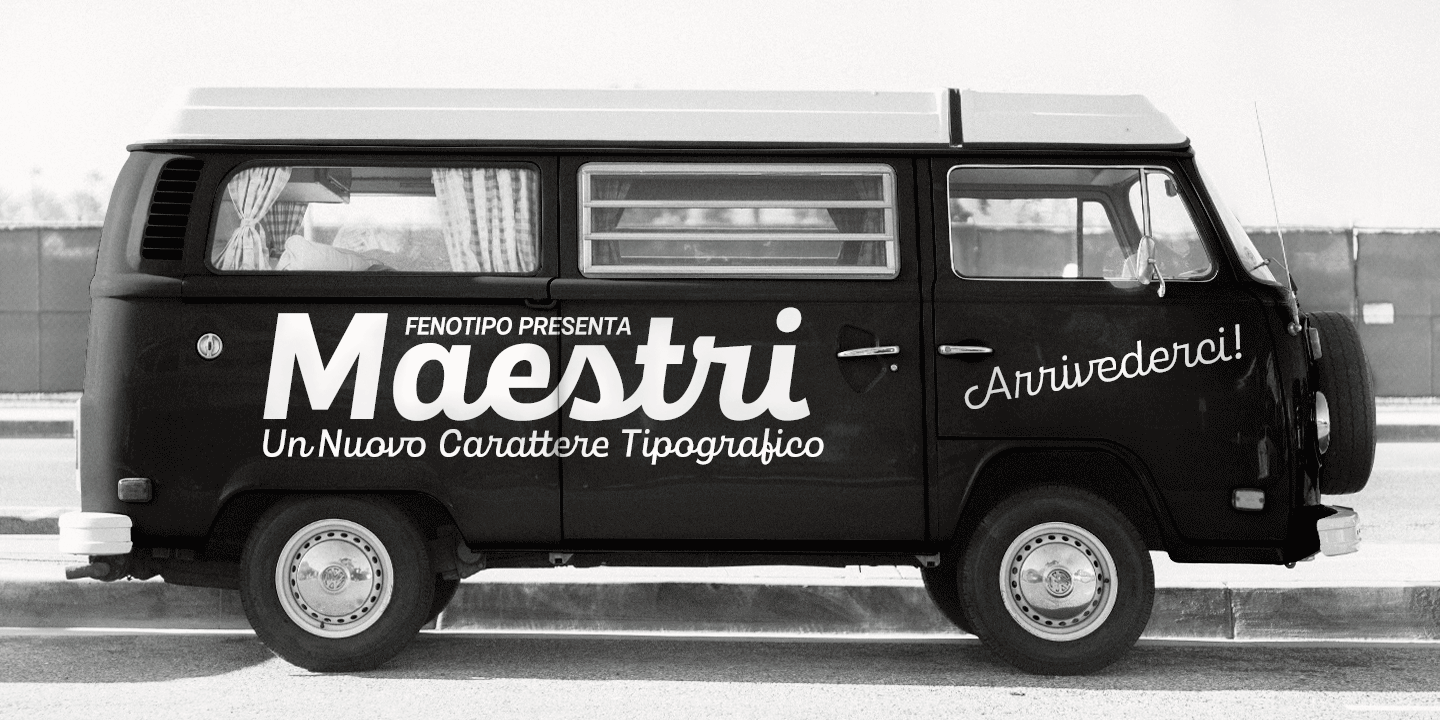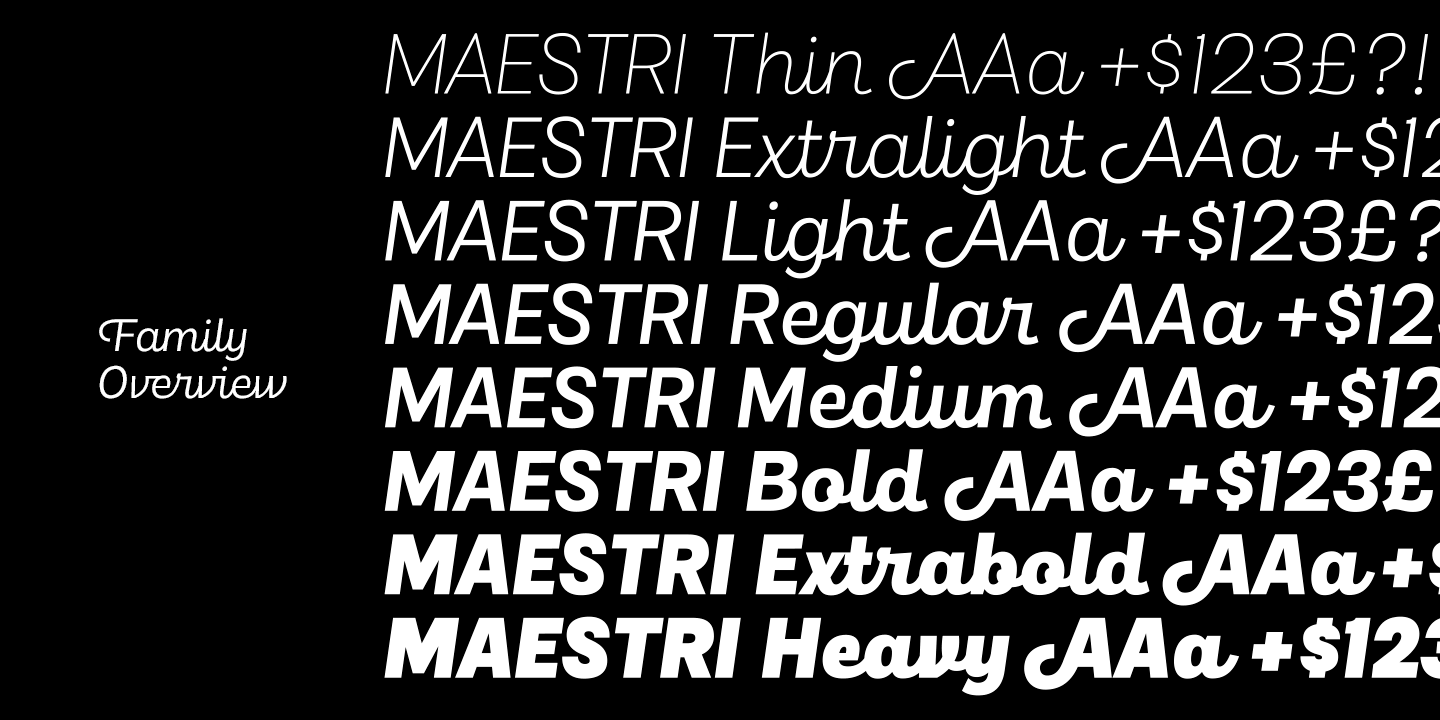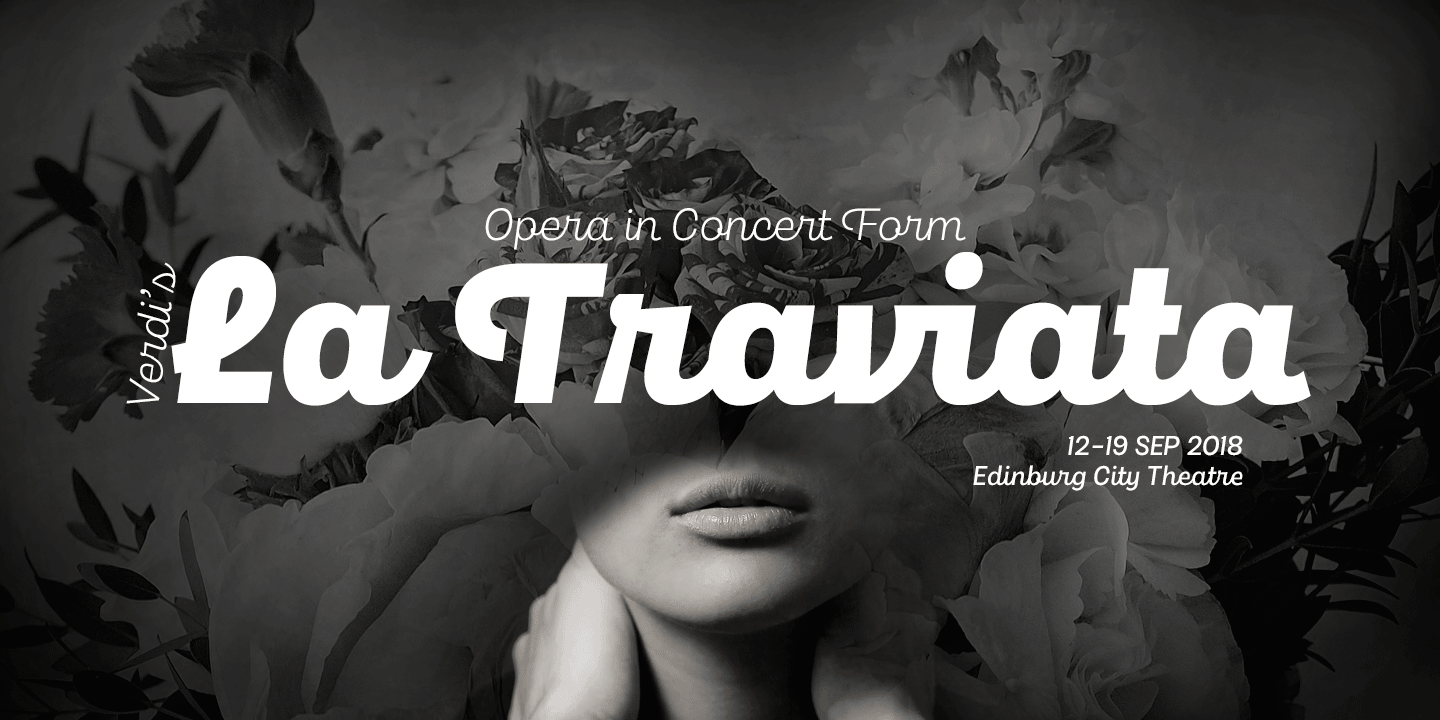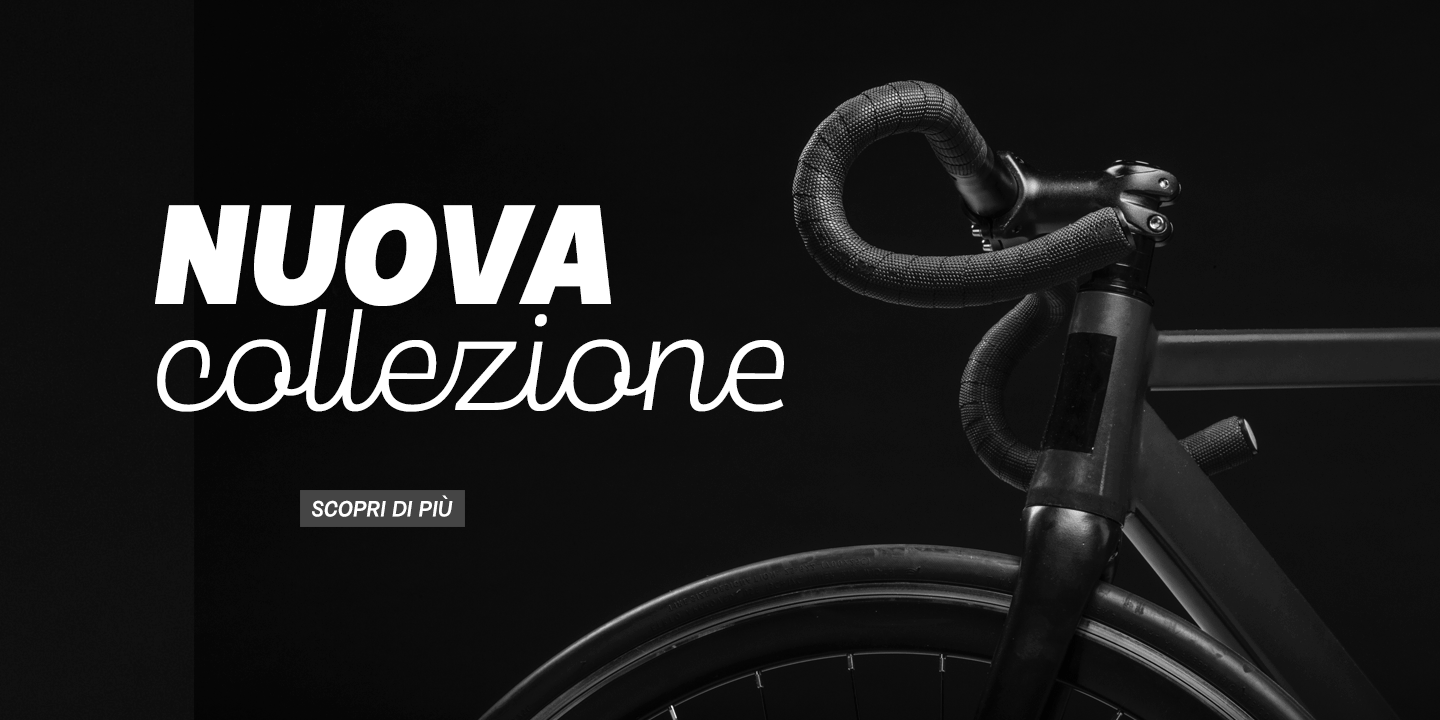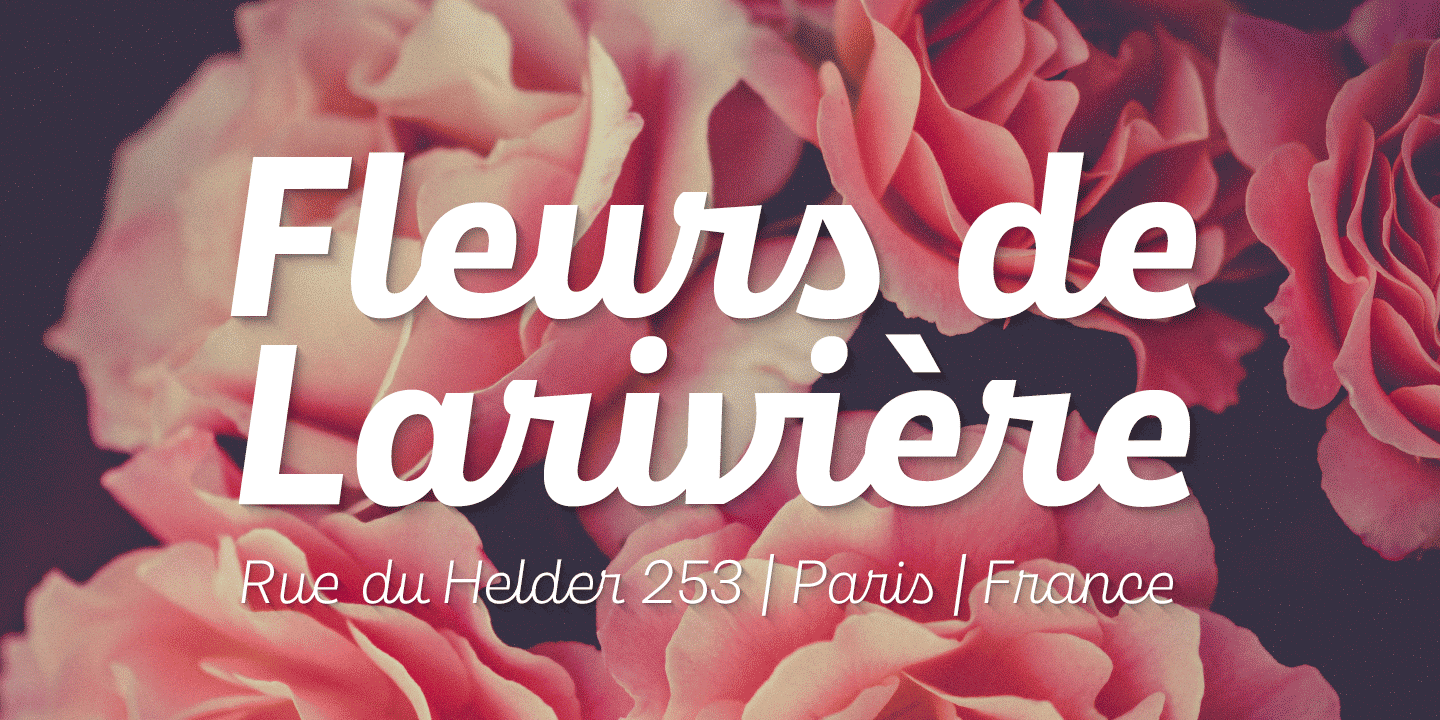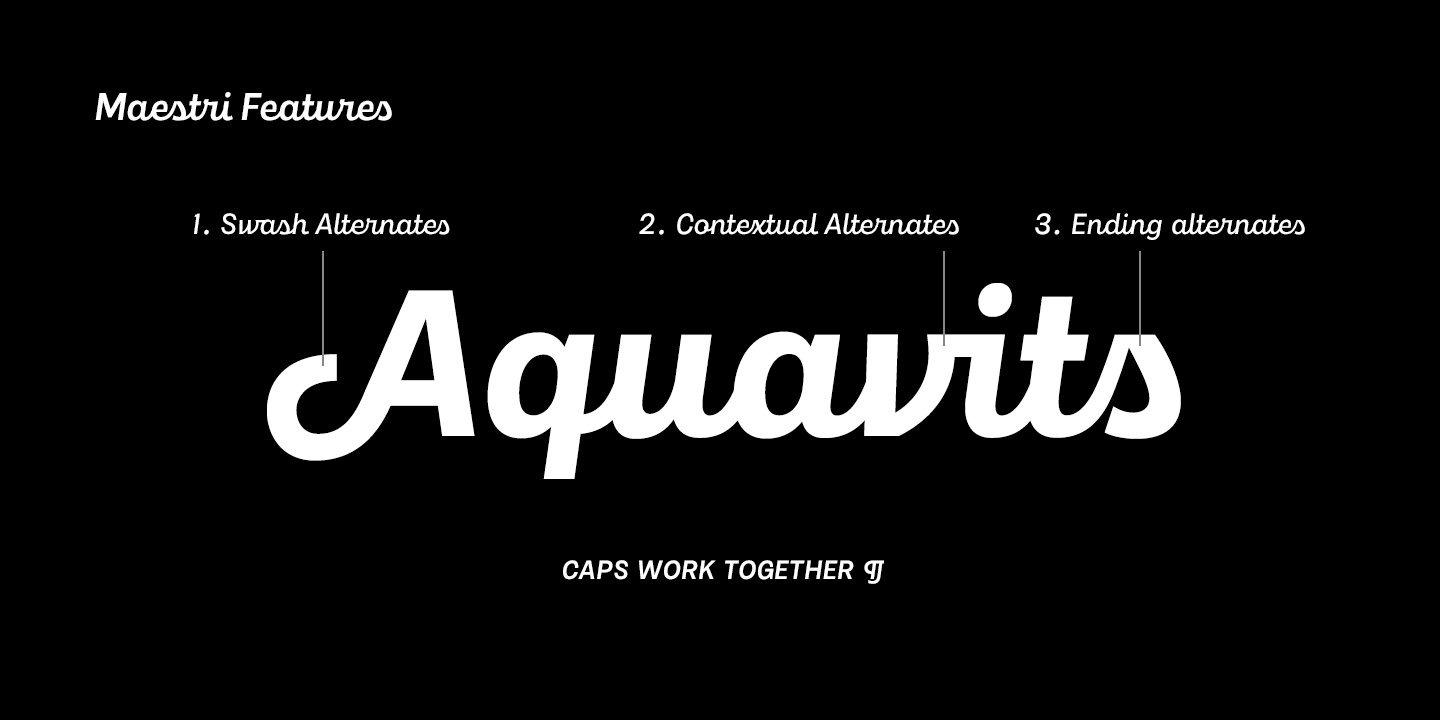
Maestri
Ciao! This is Maestri - a connected script family of eight weights, from thin to heavy. Maestri is initially a sans serif made into a script, hence the design that's strict, clean and sharp. The formal approach gives it a touch of cool elegance - yet Maestri is full of expression and character. This is evident in the wide array of Open Type features which will open up innumerable solutions for unique typography with a hand-written feel. For lowercase letters, available are Ending Alternates, Standard Ligatures and Contextual Alternates. Uppercase can be used to write in caps and there are also Swash alternates that have script-like character forms for every uppercase letter.